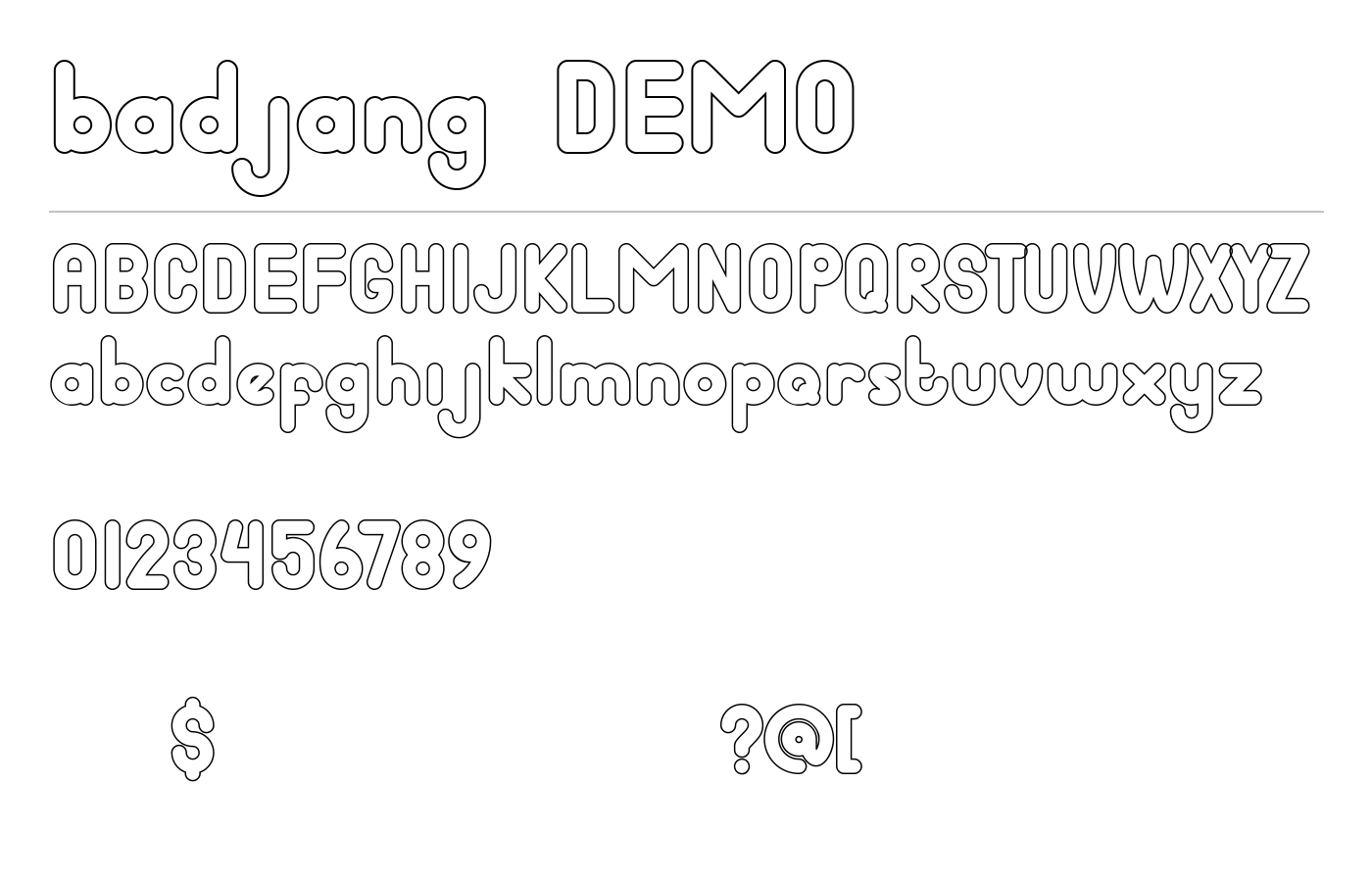
Badjang DEMO is a playful and rounded sans serif font featuring bold, bubble-like letterforms with consistent stroke weight and a high x-height, making it friendly and approachable. Its unique, soft curves and double-story letters add charm and personality, ideal for fun, casual branding, children’s content, or creative projects looking for a modern yet whimsical touch. This font works well in headlines and logos where a lively and inviting impression is desired.
badjang DEMO Font
About badjang DEMO Font